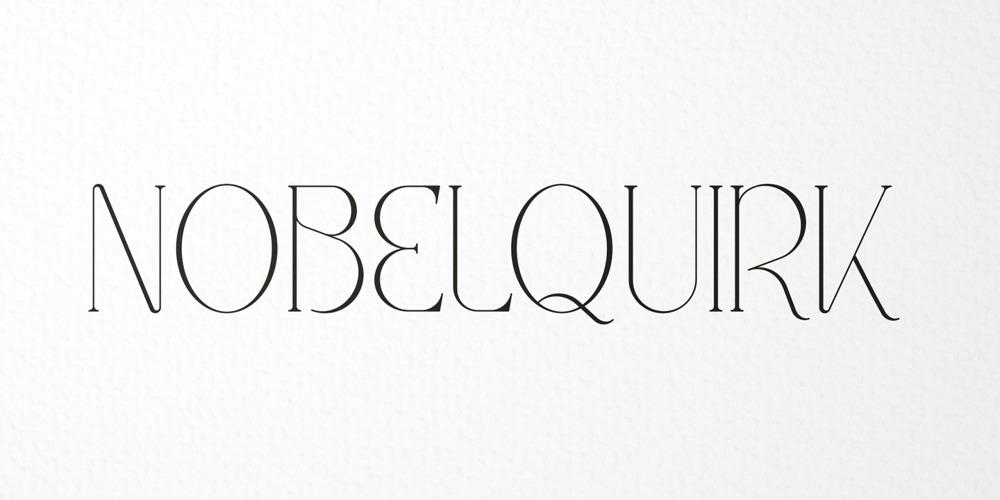
Noble Quirk Font Family was designed by Vladimir Fedotov, Plamen Petrov and published by VP Creative Shop. Noble Quirk contains 1 styles and family package options. Introducing Meraki display font – latin and Cyrillic Meraki is stylish and creative font loaded with 95 languages support, alternate and ligature glyphs to make you typography truly unique!